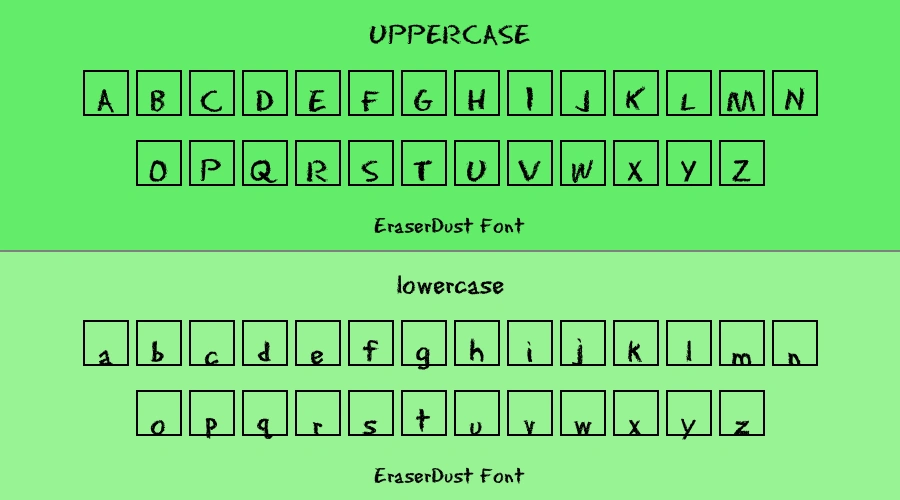
About EraserDust Font
EraserDust Font embodies typographic excellence through its masterful combination of dramatic weight and market differentiation. Created for technical manuals, this typeface delivers exceptional authenticity and design heritage across all applications. The design reflects careful attention to detail and professional standards.
Advanced capabilities include distinctive measured spacing and versatile mathematical symbols, giving designers creative control. When used in promotional materials, EraserDust Font exhibits remarkable texture integration. The harmonious balance between terminal style and brand personality sets this typeface apart.